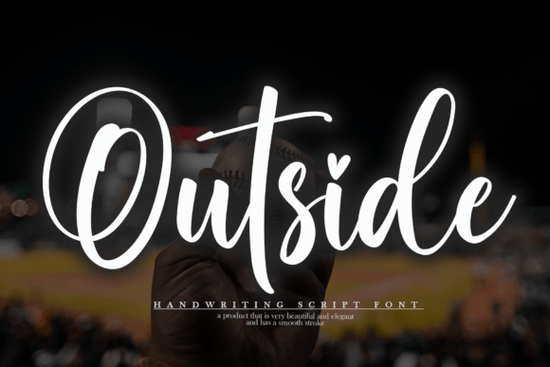
If you’ve been scrolling through Instagram or flipping through handmade greeting cards lately and noticed a font that feels like a warm hug relaxed, friendly, and just a little playful you might have seen Outside Font. It’s the kind of handwritten script that doesn’t try too hard but still stands out. Whether you’re designing merch for your Etsy shop, crafting wedding invites, or just personalizing a gift, this font adds charm without clutter.
What makes Outside Font work so well is how effortlessly it fits into everyday creative projects. You don’t need to be a pro designer to make it look good its casual strokes and uneven baseline give it character, not chaos. And if you’re pairing fonts for layered designs, try combining it with something clean like Black Sample for contrast that still feels cohesive.
Who actually uses this kind of font?
It’s not just for Instagram quotes (though yes, it shines there). Think small business owners making their own packaging labels, crafters printing vinyl decals for tumblers, or teachers designing classroom posters. The appeal? It feels human. Unlike stiff, corporate typefaces, Outside Font looks like it was drawn by hand because in spirit, it was.
- Print-on-demand sellers love it for mugs, tote bags, and journals especially when targeting audiences who value cozy, handmade aesthetics.
- Wedding stationery designers use it for save-the-dates or menu cards where warmth matters more than formality.
- Hobbyists grab it for scrapbooking, birthday banners, or even painted wood signs no design degree required.
How does it compare to other casual scripts?
If you’ve used Peach Club before, you’ll notice Outside has slightly rounder letterforms and a more grounded rhythm. Peach Club leans bubbly; Outside leans breezy. For winter-themed projects, Wintersnow brings delicate frost-like elegance, while Outside keeps things approachable year-round.
And if you’re working on floral or boho designs, pairing Outside with Beautiful Wildflower Duo creates a combo that feels organic and intentional not forced. One handles headlines with personality, the other adds decorative detail without competing.
Where should you avoid using it?
It’s not ideal for long paragraphs or legal disclaimers. This is a display font meant to catch the eye in short bursts. Think logos, headers, product names, social media graphics, or accent text. Also, if your brand voice is ultra-minimalist or strictly corporate, you might want to test it first. But for lifestyle brands, mom-and-pop shops, or anything “vibe-forward,” it’s a natural fit.
Any tips for getting the most out of it?
A few small tweaks go a long way:
- Add letter spacing just a tiny bit to keep it airy and prevent crowding, especially in all-caps layouts.
- Use sparingly one headline or focal phrase per design is enough. Let it breathe.
- Pair with neutrals sans-serifs like Montserrat or Lato balance its whimsy without fighting it.
Also, don’t overlook color. Outside Font looks especially sweet in muted tones think sage green, dusty rose, or warm beige but pops nicely against dark backgrounds too, especially when you add a thin white stroke for readability.